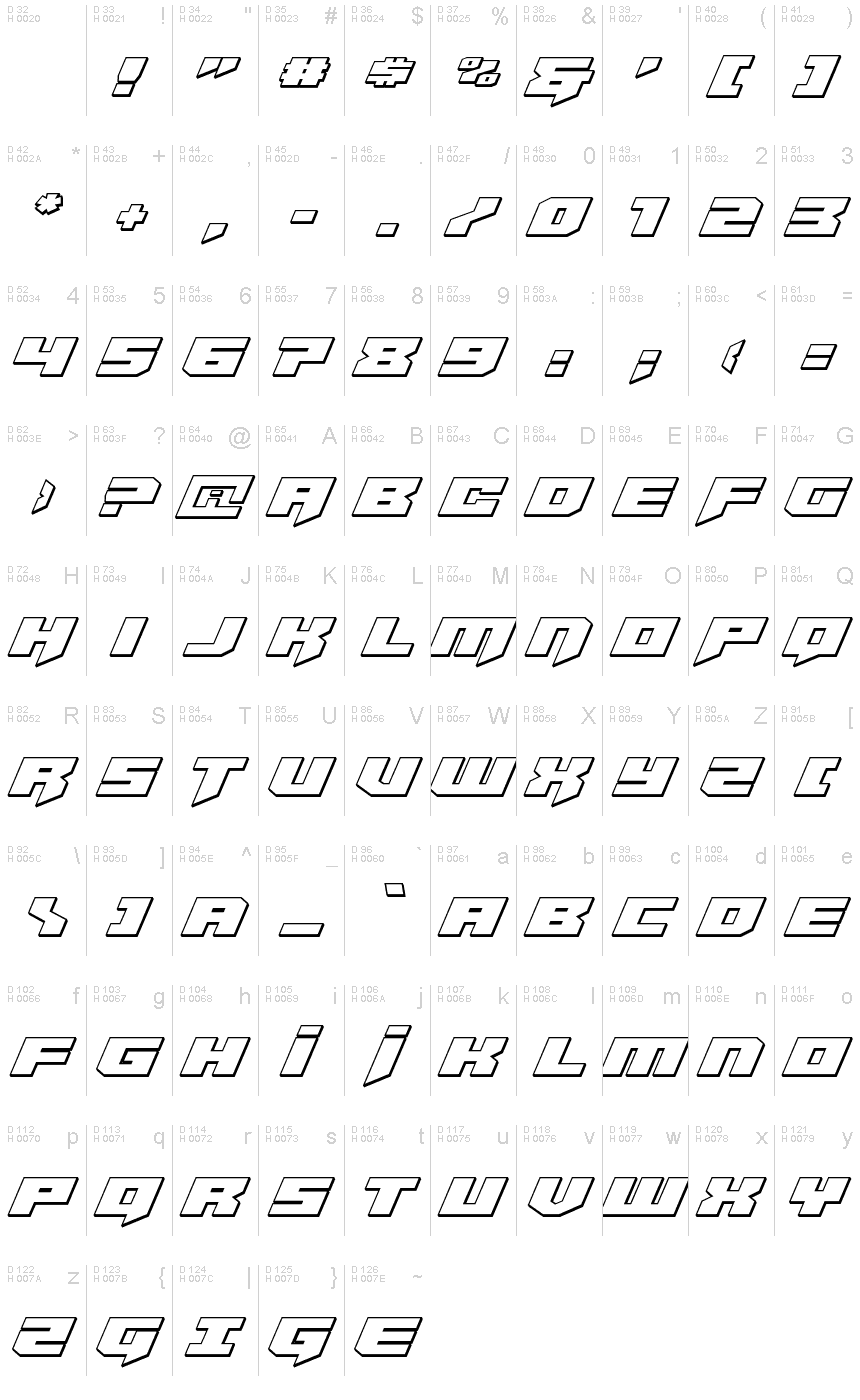
Bridge OFFicer 3D
Bridge Officer 3D, a striking creation by Iconian Fonts, commands attention with its expanded width and extra-bold weight. This display font embodies a three-dimensional aesthetic that leaps off the page, offering an undeniable sense of depth and impact. The Bridge Officer family is known for its commanding presence, and the 3D style of this particular typeface enhances that visual authority.
Crafted to stand out, Bridge Officer 3D's characters boast clean lines and sharp edges, making it an ideal choice for titles, headers, and any project needing a bold statement. Its expanded form factor allows for easy readability even when used in larger displays or at a distance.
Ideal for creative endeavors that require a touch of modernity and strength—such as posters, game interfaces, movie titles, or brand identities—this font's robust design ensures it remains legible while delivering maximum visual impact. Whether you're aiming to evoke the futuristic control panels of a spaceship or simply need to anchor your design with solid typography, Bridge Officer 3D is your go-to font for making an unforgettable impression.
Crafted to stand out, Bridge Officer 3D's characters boast clean lines and sharp edges, making it an ideal choice for titles, headers, and any project needing a bold statement. Its expanded form factor allows for easy readability even when used in larger displays or at a distance.
Ideal for creative endeavors that require a touch of modernity and strength—such as posters, game interfaces, movie titles, or brand identities—this font's robust design ensures it remains legible while delivering maximum visual impact. Whether you're aiming to evoke the futuristic control panels of a spaceship or simply need to anchor your design with solid typography, Bridge Officer 3D is your go-to font for making an unforgettable impression.